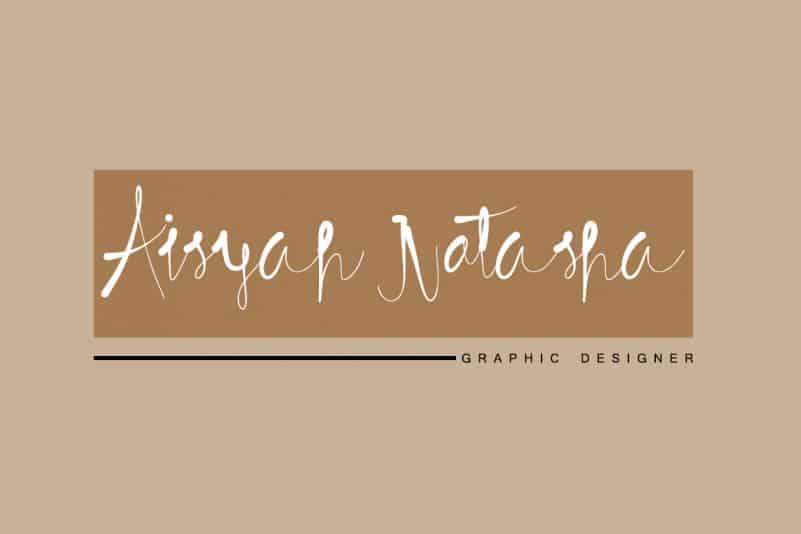
Etthiopian Calligraphy Font
Etthiopian Calligraphy Font is a very modern and minimalist calligraphy font that looks very elegant.
This Etthiopian is perfect if it is used for various purposes such as product writing, someone’s name, for wedding invitations, for business cards and various projects related to a product or product brand.